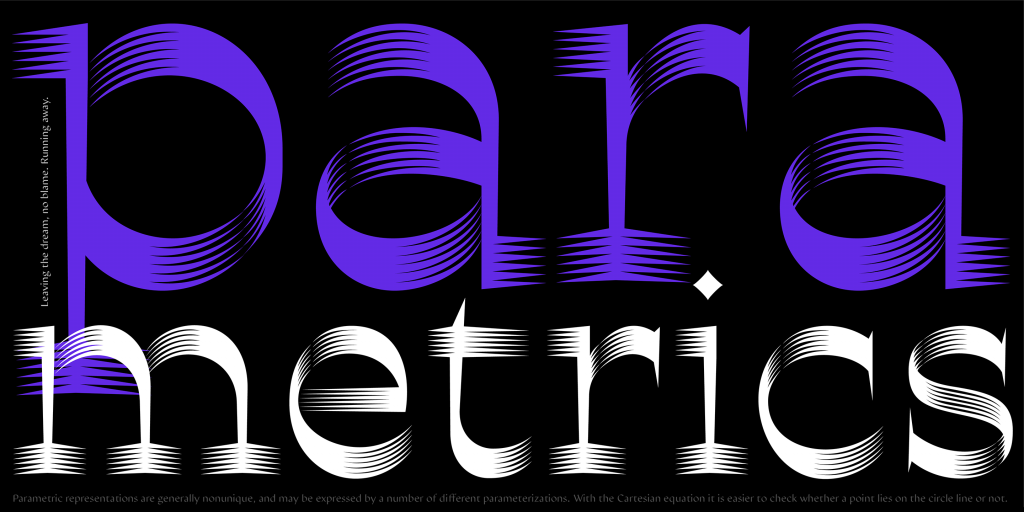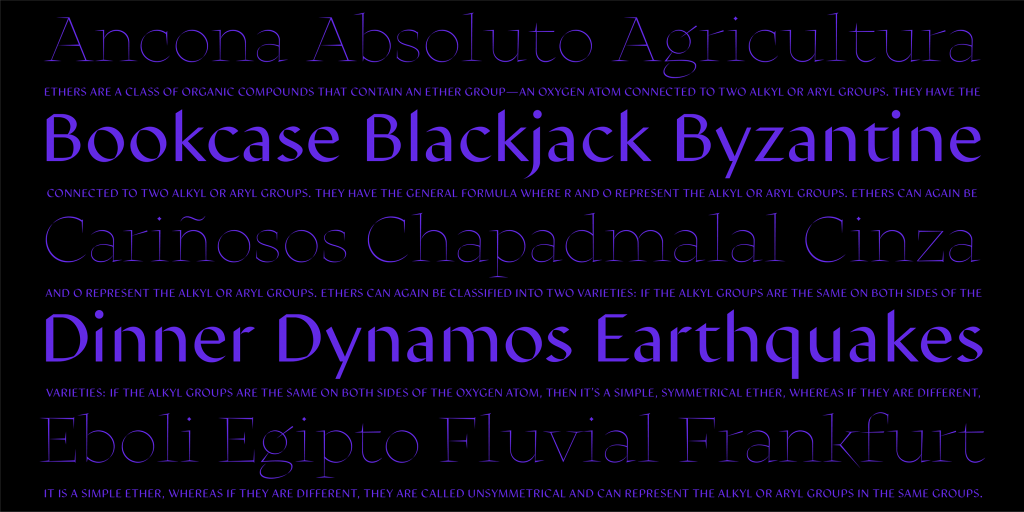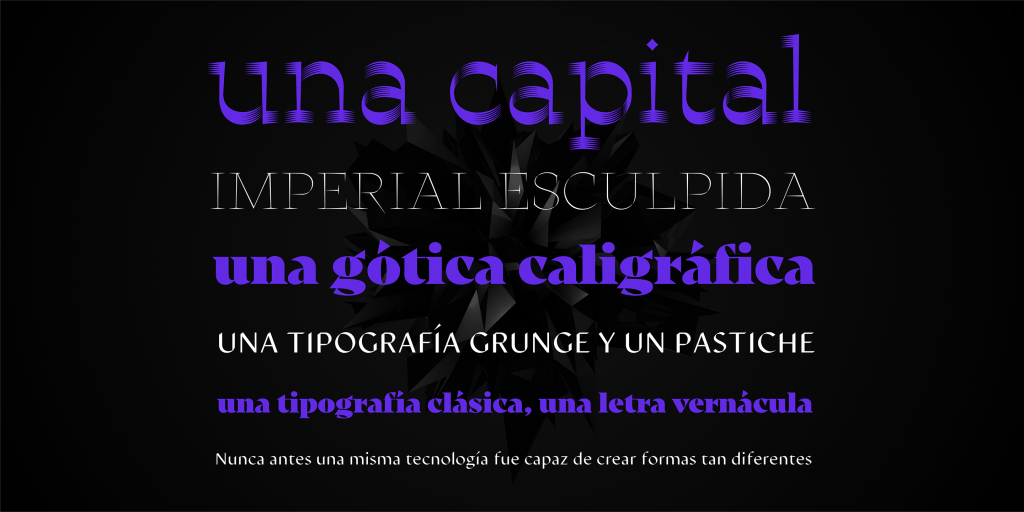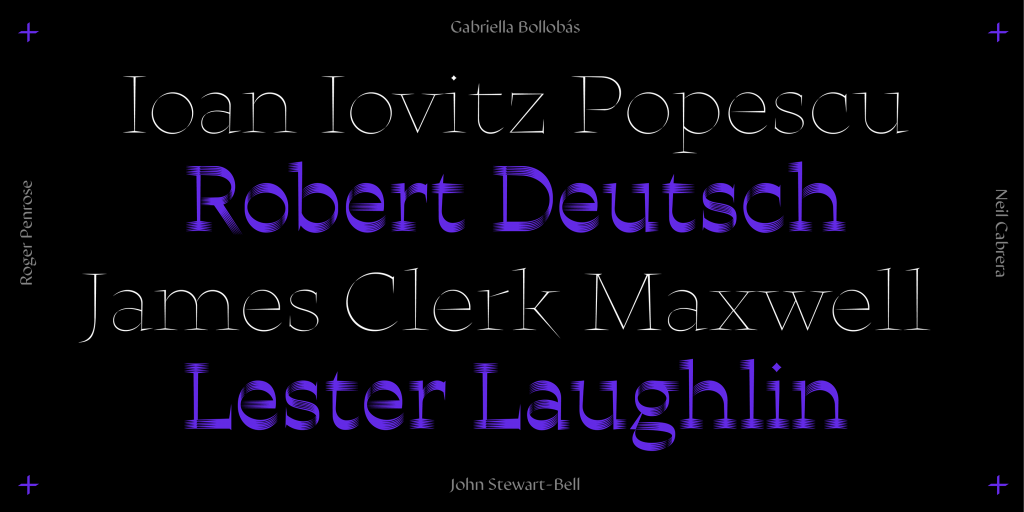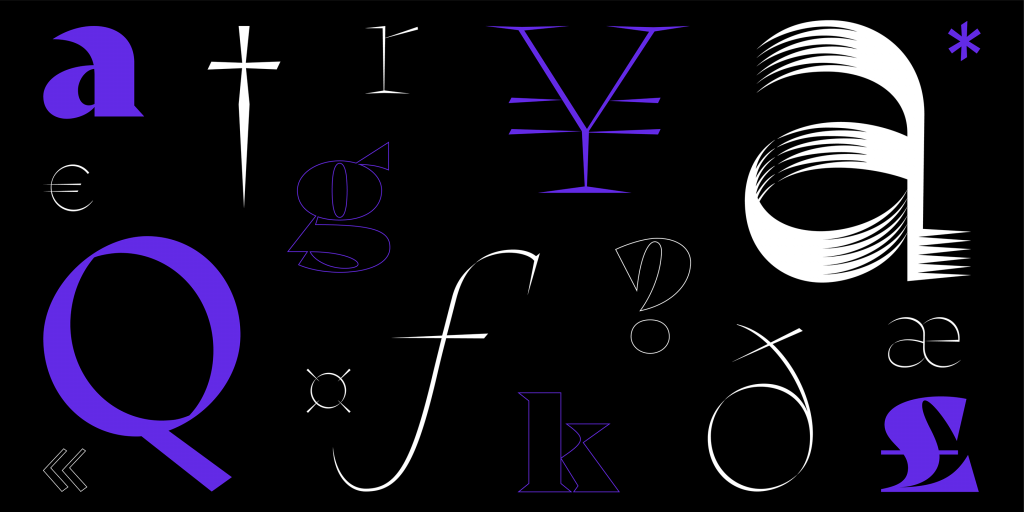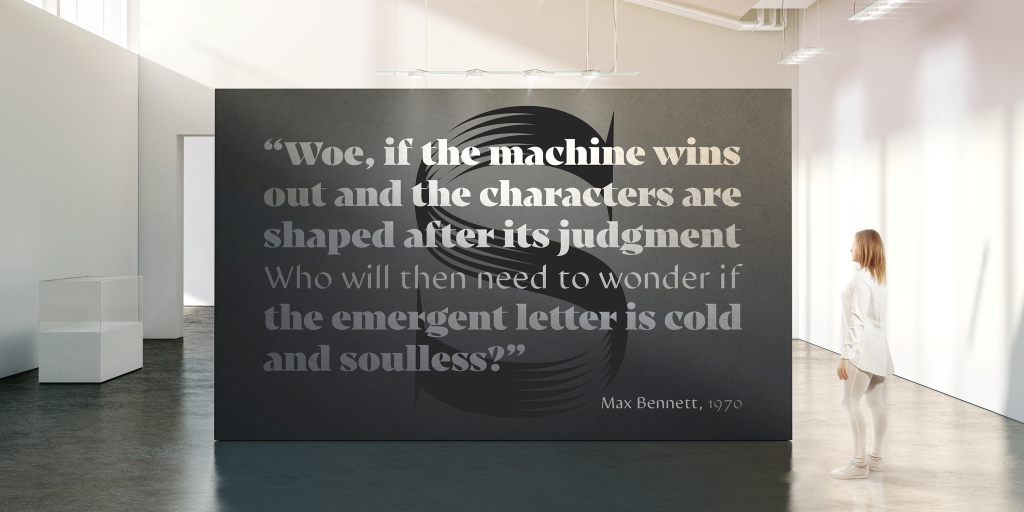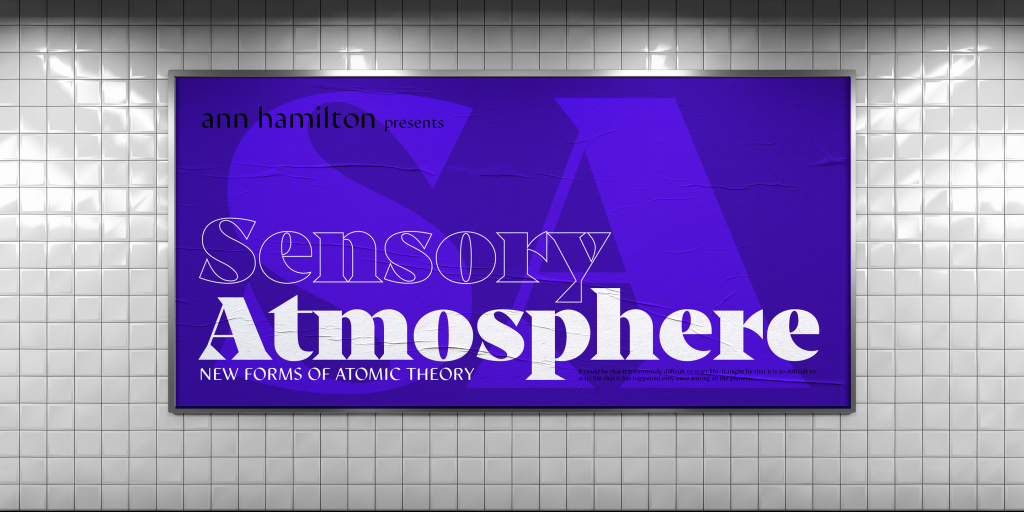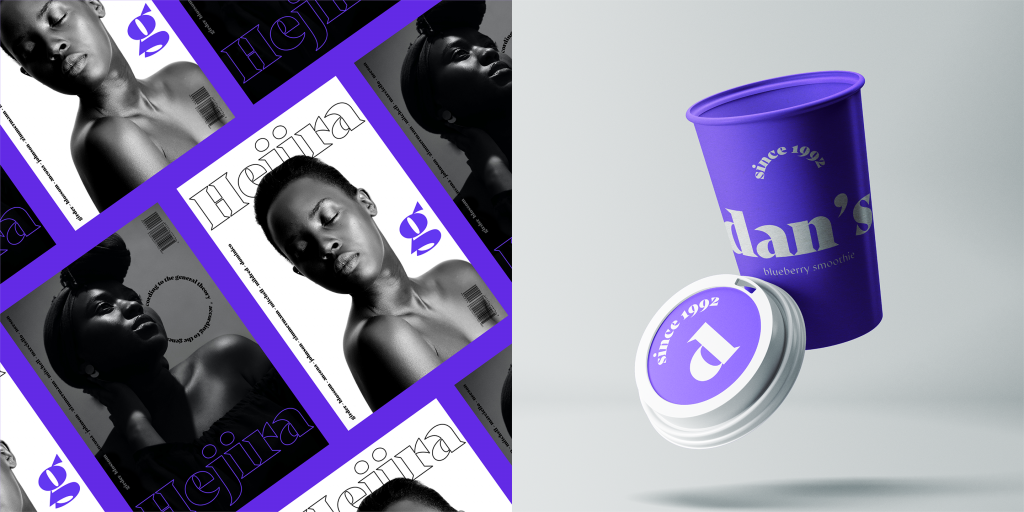
Name: Hejira
Foundry: Sudtipos
Designer: Gastón Fuoco
Release Date: October 2020
Back Story: Gastón Fuoco designed Hejira specifically to defy expectations of what a type family should look like, and how uniform it should feel. Gazing at all the different versions of Hejira together, the similarities become obvious. When viewed separately, only the most astute viewer would be able to immediately make the connection between the beefy fat face, the thorny and dangerous-looking single stroke, and the multiple-stroke version, which looks formed from swipes of a bear claw. Typeface detectives would need to be called in to link the quiet sans serif (which looks like a kid who’s fallen in with the wrong crowd) to the rest of this gang. Nevertheless, all four styles feel part of the same system and can be used alongside each other seamlessly.
Why’s it called Hejira? “Hejira means ‘rupture’ [in Arabic] and I thought this concept really suited the spirit of the typeface,” says Fuoco, who is a Buenos Aires-based UX and web designer as well as a type designer. “It’s also the title of a Joni Mitchell album, which lifts my spirit on Sunday mornings; its exotic, mysterious-sounding name always caught my attention.” The word, which is more commonly spelled as Hegira or Hijra, usually refers to the migration of the Islamic prophet Muhammad (and his companions) from Mecca to Medina in 622. Mitchell has said that when she chose the album title, she was looking for a word that meant “running away with honor,” as she wrote the songs during a turbulent time in 1975 and ’76 when she had a fling with playwright and actor Sam Shepard, broke up with her boyfriend, abandoned a tour midway through, began abusing cocaine, and set off on a cross-country road trip across America with her Australian former lover and another male friend.
What are its distinguishing characteristics? Each style has its own distinct features. First off, there’s a skeletal alphabet with serifs that feature wedge-shaped strokes. A more experimental version is based on the same framework but with the strokes multiplied and overlaid for an otherworldly, trippy effect. Then there’s a genteel sans serif style whose mild shapes seem to be generated by a calligraphic pen, and finally a quirky fat face combining round curves with pointy elements.
What should I use it for? The complete Hejira set covers all bases, so designers can use it for a varied range of purposes. Some of its features are best visualized when set at larger sizes in branding, posters, and signage.
What other typefaces do you like to pair it with? Hejira works well matched up with neutral designs such as Grafik or Mallory. Some other typefaces in the Sudtipos catalog lend themselves well as companions, too, including Ansage and Address Sans.